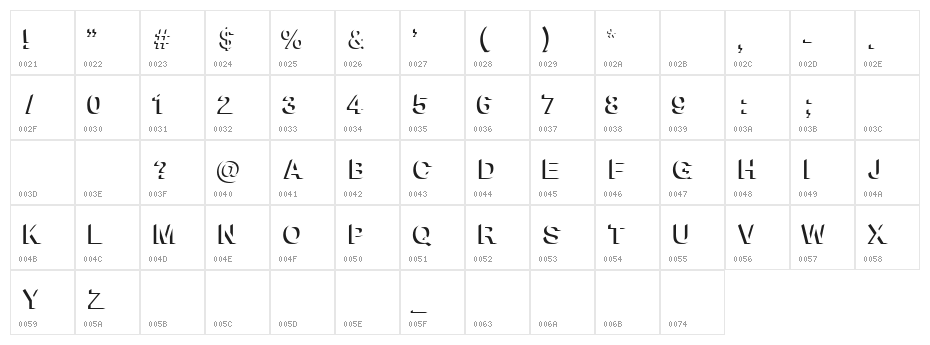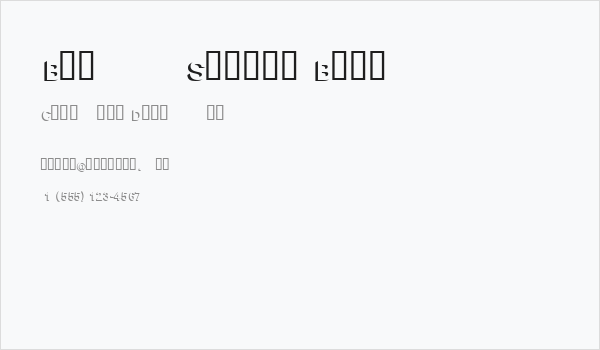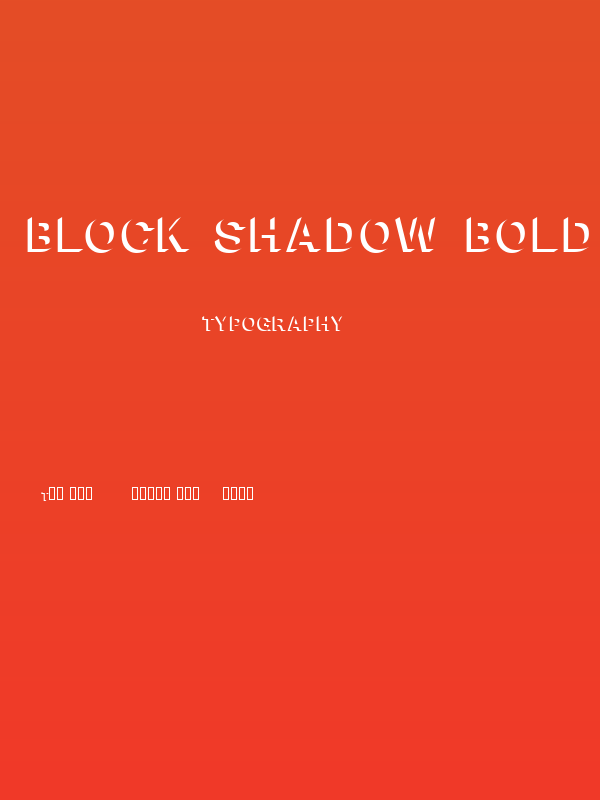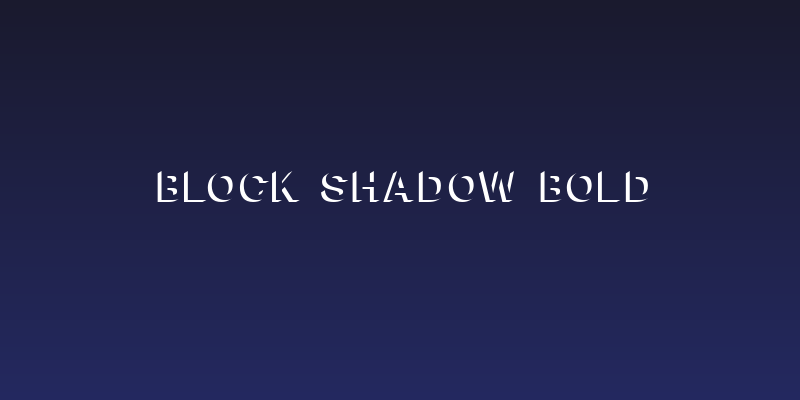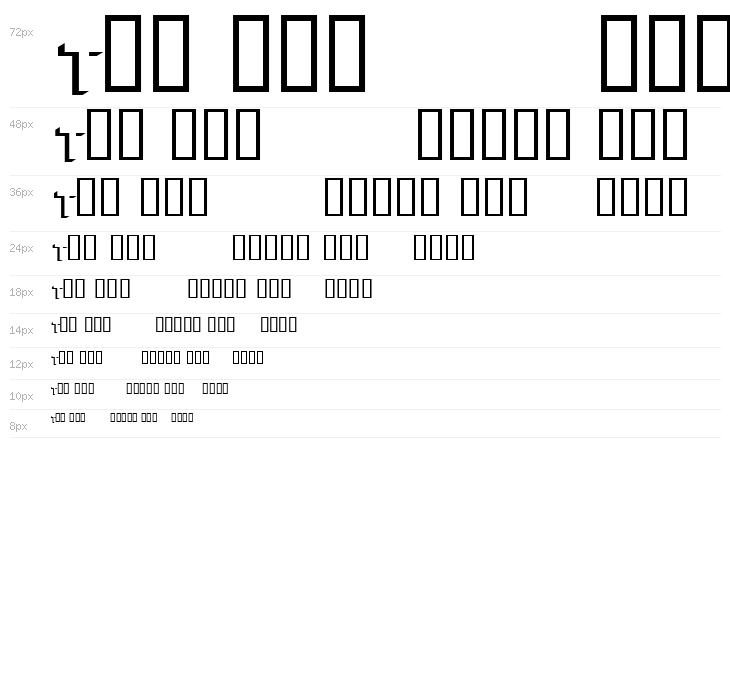
Block Shadow Bold Font
Block Shadow Bold Description
This font features bold, blocky characters with a distinct shadow effect that gives it a three-dimensional appearance. The uppercase letters are particularly striking, with sharp angles and clean lines that create a sense of strength and stability. The numbers and special characters maintain this bold aesthetic, ensuring consistency across all glyphs. The shadow effect adds depth, making the text stand out, which is ideal for eye-catching designs. The font's style is both modern and decorative, making it suitable for a variety of creative applications.
| Proposed Projects | Ideal for posters, headlines, logos, and any design requiring a strong visual impact. |